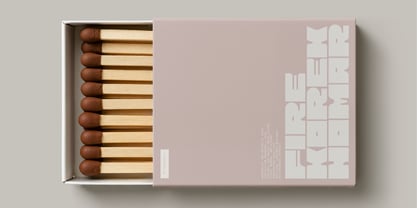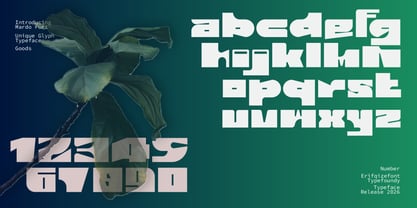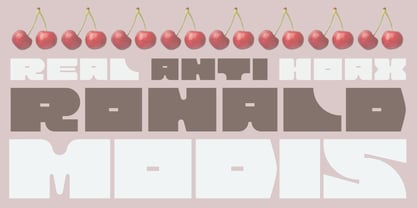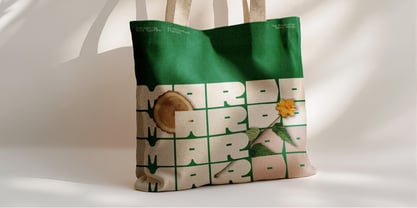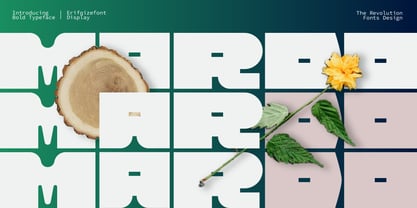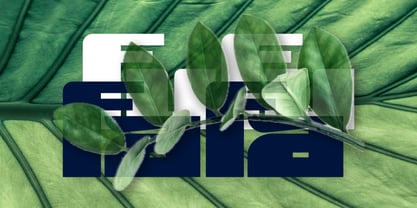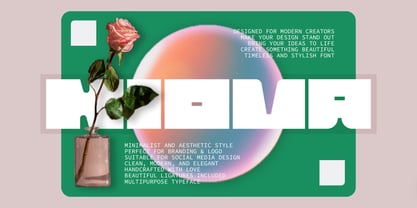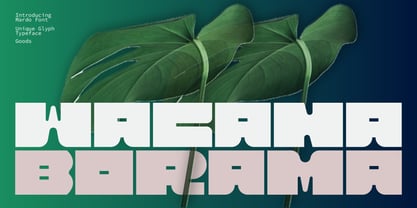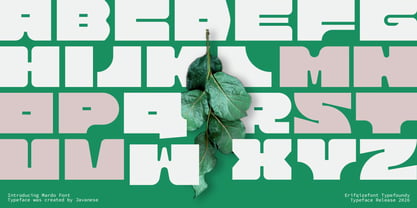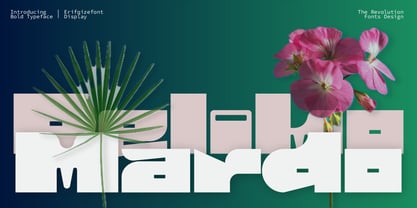
Mardo
par Erifqizefont
La famille de polices Mardo a été conçue par Eka Rifqi Setiawan et publiée par Erifqizefont. Mardo contient 1 styles. En savoir plus sur cette famille
MARDO is a bold display typeface with a strong geometric structure and playful personality. Designed with thick letterforms and unique cut details, MARDO delivers a modern yet organic feel—perfect for eye-catching headlines, branding, posters, and creative layouts. Inspired by natural elements and contemporary grid-based design, this typeface blends solid shapes with soft curves, creating a distinctive visual rhythm that stands out in any composition. MARDO is ideal for designers who want to make a bold statement while keeping a friendly and approachable tone. Whether used for branding, editorial design, packaging, or digital content, MARDO brings a fresh, expressive, and confident character to your projects.
Concepteurs: Eka Rifqi Setiawan
Fonderie: Erifqizefont
Introducing Erifqizefont, a Foundry led by Eka Rifqi Setiawan. Originating from Eka's experience as an Icon Designer, Erifqizefont specializes in bold, symmetrical Display Fonts with futuristic elements, occasionally exploring retro and whimsical styles. Based in Indonesia, Erifqizefont integrates the nation's cultural heritage into its designs. As a sole proprietor, Eka focuses on crafting superior, unique fonts, setting Erifqizefont apart in the industry.